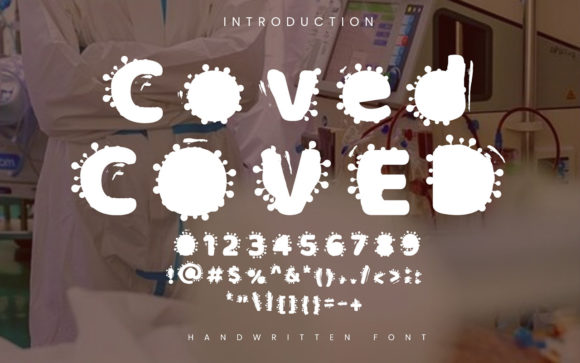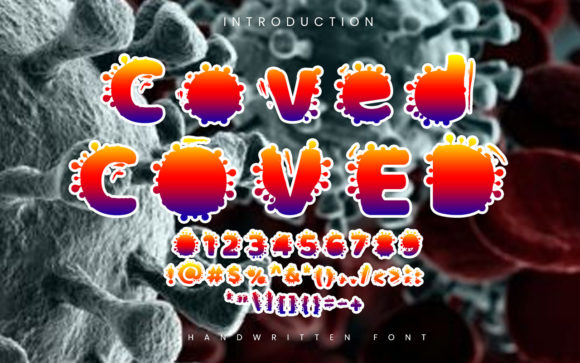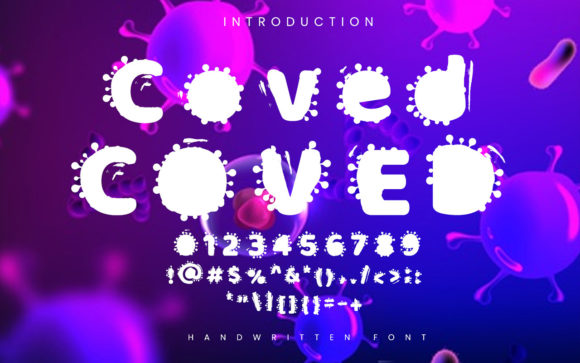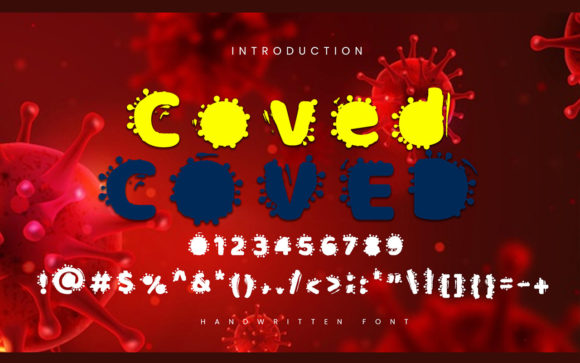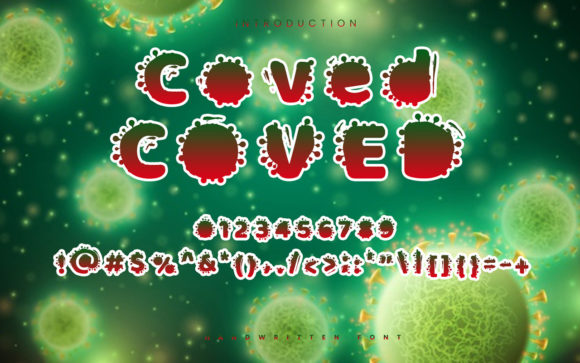
Coved Font: Elevate Your Designs with a Cool and Fun Display Font
Are you tired of using the same old fonts in your designs? Look no further than Coved Font, a cool and fun display font that’s sure to take your creations to the next level. With its unique and playful style, Coved is an incredibly versatile font that can be used for a wide range of projects, from bold headlines to eye-catching posters.
The Versatility of Coved Font
No matter the topic or theme, Coved Font is an asset to your font library. Its adaptability and charm make it perfect for various design projects, such as:
- Posters and Flyers: Create bold and attention-grabbing posters and flyers with Coved Font. Its unique style is sure to stand out and leave a lasting impression.
- Logos and Branding: Use Coved Font to create a memorable and playful logo for your brand. Its fun and quirky style is perfect for businesses that want to showcase their personality.
- Social Media Graphics: Elevate your social media graphics with Coved Font. Its cool and modern style is sure to make your posts stand out in a crowded feed.
- Packaging Design: Add a touch of whimsy to your packaging design with Coved Font. Its playful style is perfect for product labels, tags, and other packaging materials.
What Makes Coved Font So Special?
Coved Font is more than just a font – it’s an experience. Its unique design and playful style make it a standout in any design project. Here are just a few reasons why Coved Font is so special:
- Unique Design: Coved Font has a one-of-a-kind design that’s sure to turn heads. Its bold lines and quirky style make it a font that’s hard to forget.
- Highly Legible: Despite its bold and playful style, Coved Font is highly legible, even at small sizes. This makes it perfect for use in a wide range of design projects.
- Extensive Character Set: Coved Font comes with an extensive character set, including uppercase and lowercase letters, numbers, and punctuation marks.
Tips for Using Coved Font
To get the most out of Coved Font, here are a few tips to keep in mind:
- Use it Boldly: Coved Font is designed to make a statement, so don’t be afraid to use it boldly. Use large font sizes and bold colors to make your text stand out.
- Experiment with Colors: Coved Font looks great in a wide range of colors, so don’t be afraid to experiment. Try using bright and bold colors to add some extra personality to your design.
- Pair it with Other Fonts: Coved Font pairs well with a wide range of other fonts, so don’t be afraid to get creative. Try pairing it with a clean sans-serif font for a bold and modern look.
In conclusion, Coved Font is a cool and fun display font that’s sure to elevate any design project. Its unique style, versatility, and charm make it an asset to any font library. Whether you’re a designer, craft, or DIY enthusiast, Coved Font is a must-have font that’s sure to inspire creativity and take your designs to the next level.
Coved Font is a game-changer for designers and crafters. Its unique design, versatility, and charm make it a font that’s sure to stand out in any design project. So why wait? Get your hands on Coved Font today and start elevating your designs to new heights!